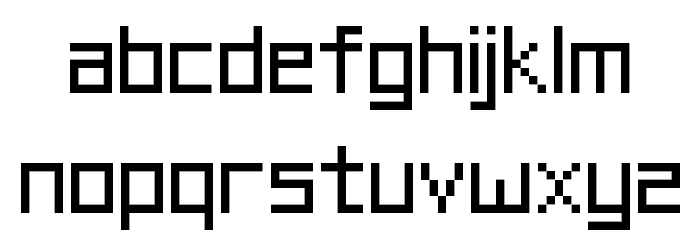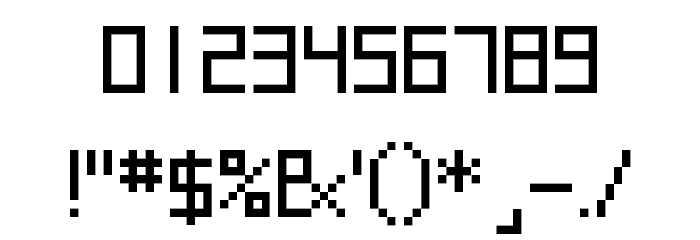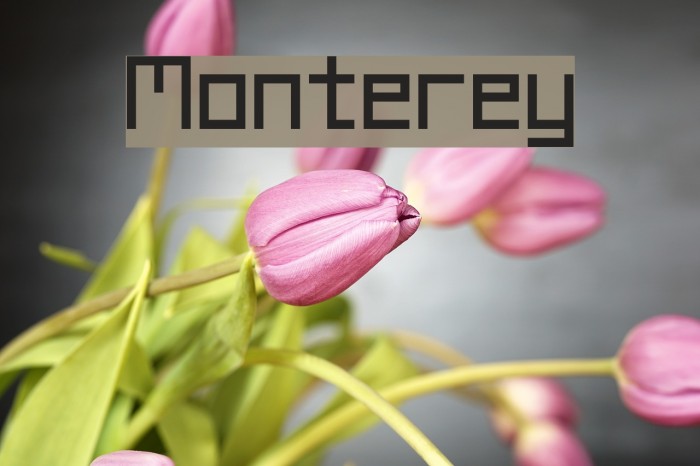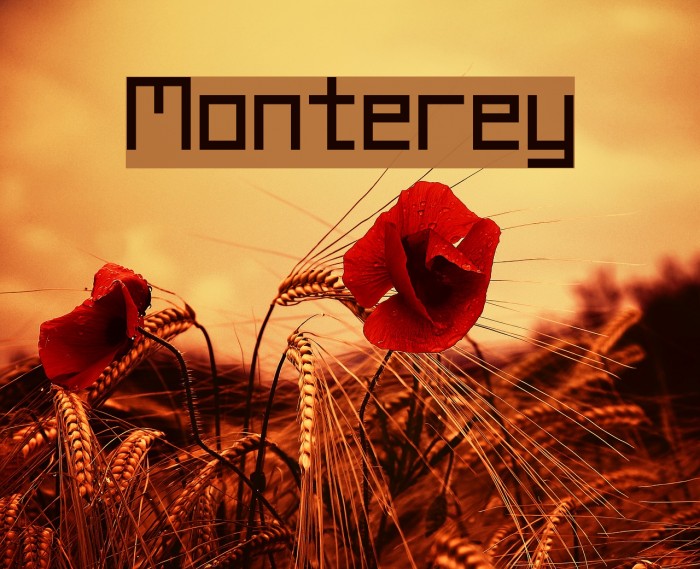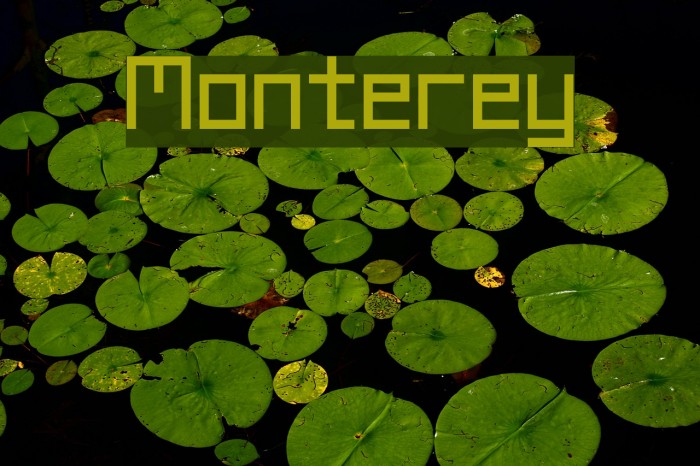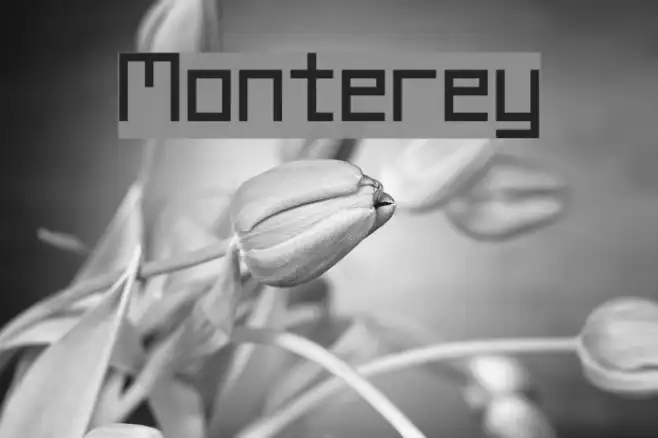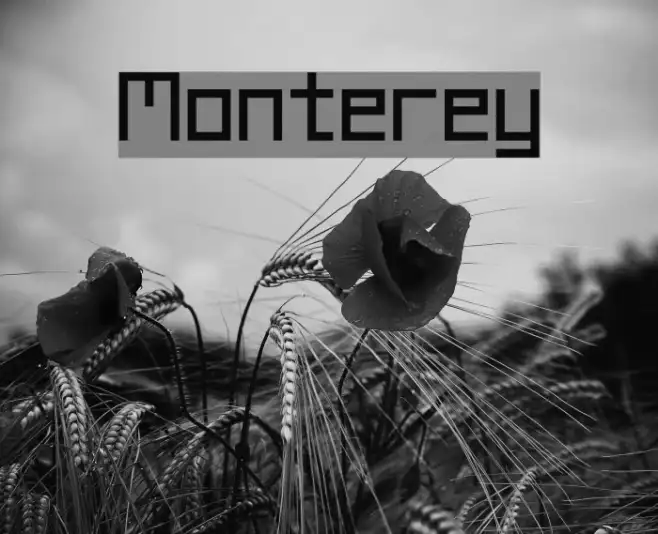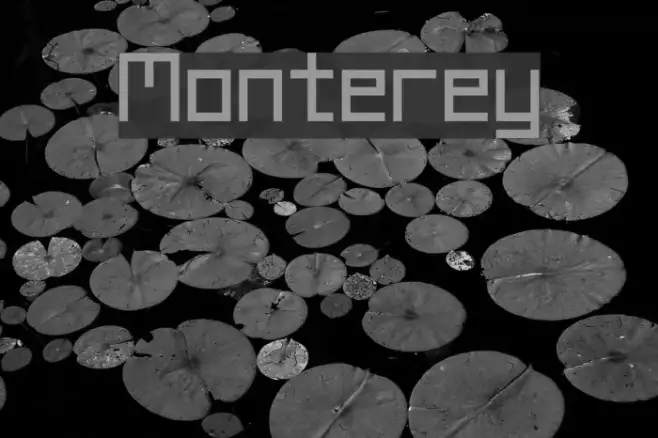
Monterey Font
This font features a pixelated, blocky design reminiscent of early digital displays and retro video games. Each character is constructed with a uniform grid-like structure, giving it a distinctly geometric and technical appearance. The uppercase and lowercase letters maintain a consistent height and width, creating a cohesive and balanced look. Numbers and special characters follow the same pixelated style, ensuring uniformity across all glyphs. The font's simplicity and clarity make it highly legible, even at smaller sizes, while its nostalgic aesthetic evokes a sense of vintage computing and classic arcade games.
A pixelated, retro-style font with a blocky, geometric design.
- Proposed Projects: Ideal for retro-themed designs, video game graphics, digital art projects, and any creative work that requires a nostalgic or technical feel.
- Overall Style: Vintage
- Use Case: Headlines, Logos, Digital displays